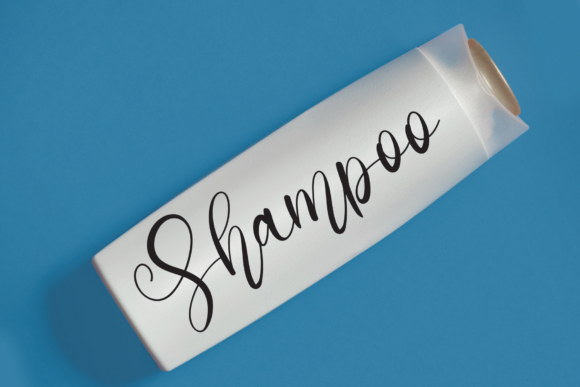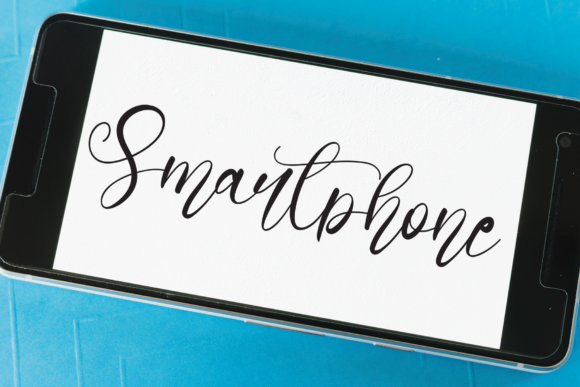
Milkylove Font
db-ku.com - Script & Handwritten -- Milkylove is a lovely and adorable script font. It can be added to plenty of creations that require a personalized, romantic touch. Add this cursive and well balanced font to your designs and you will love the final outcome.